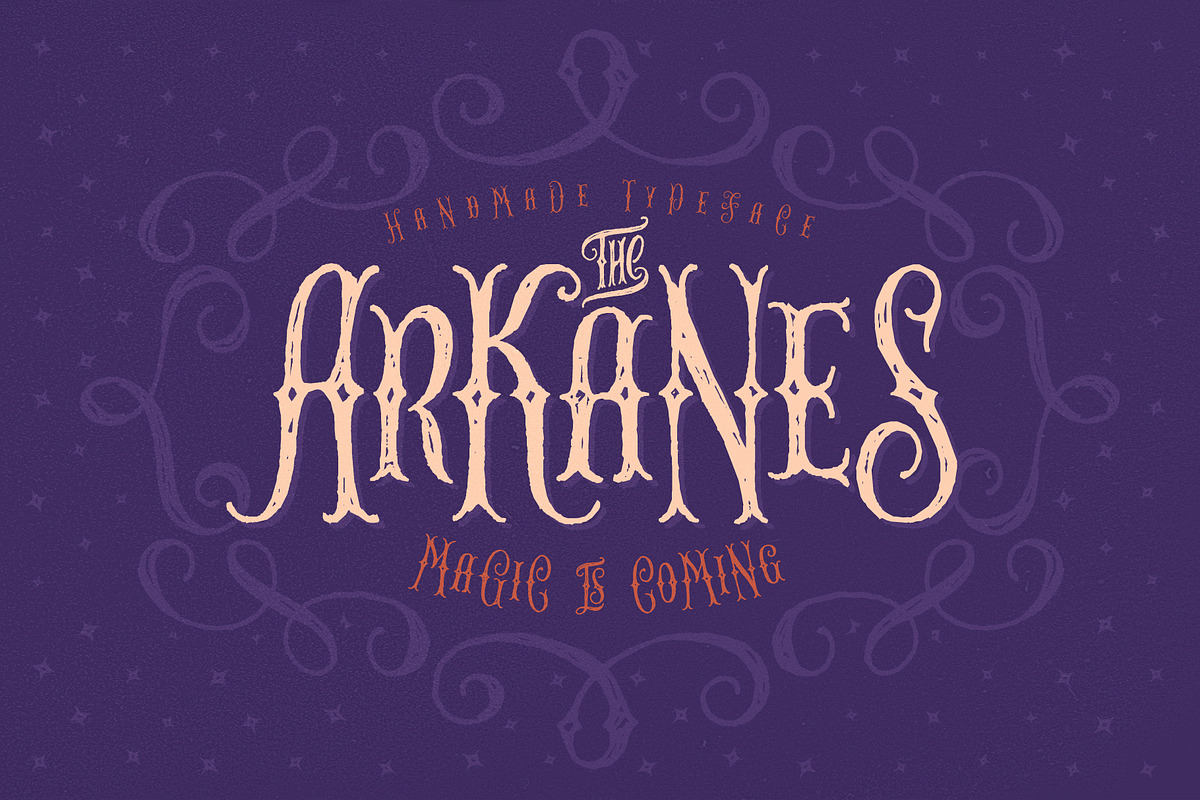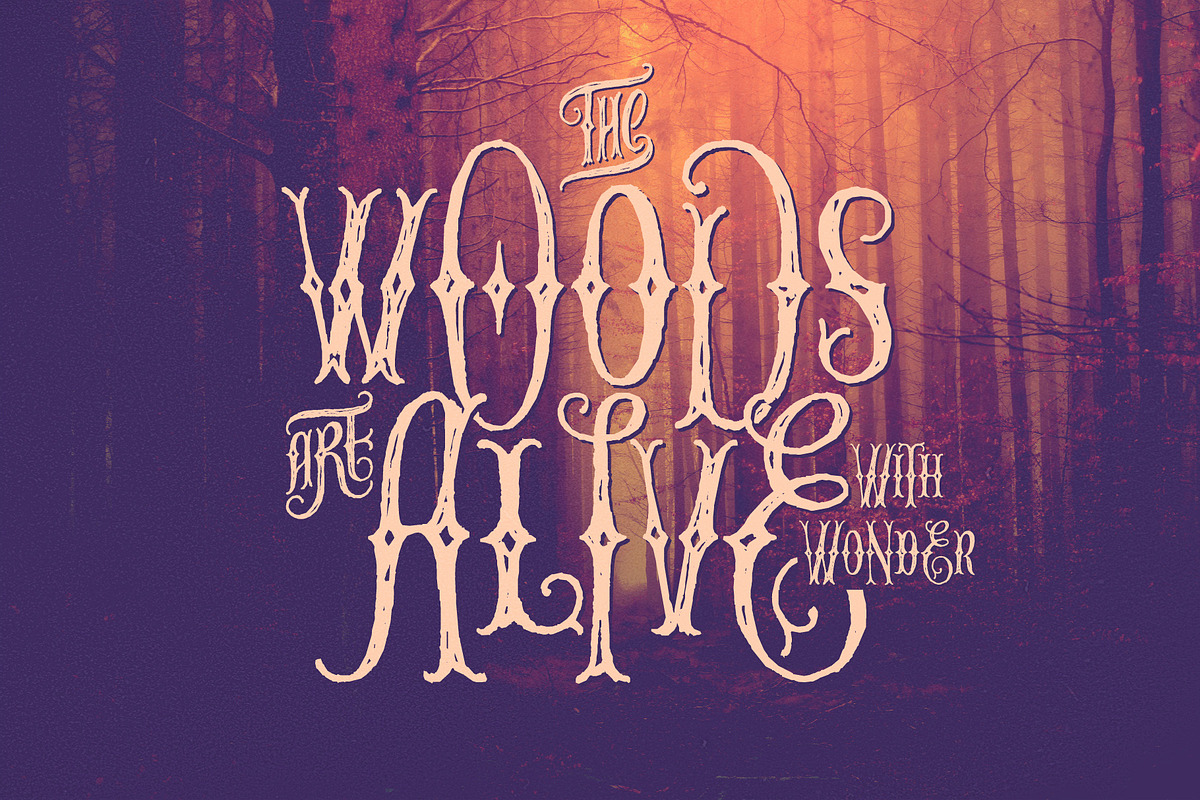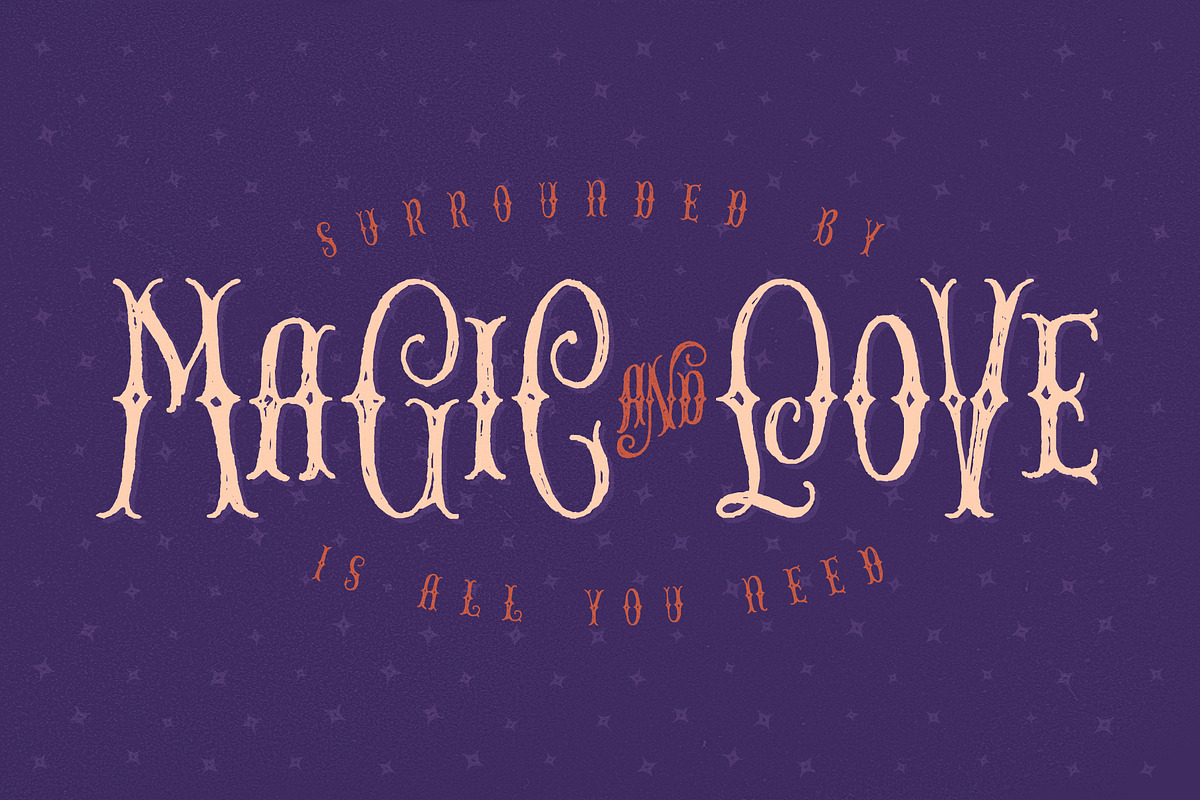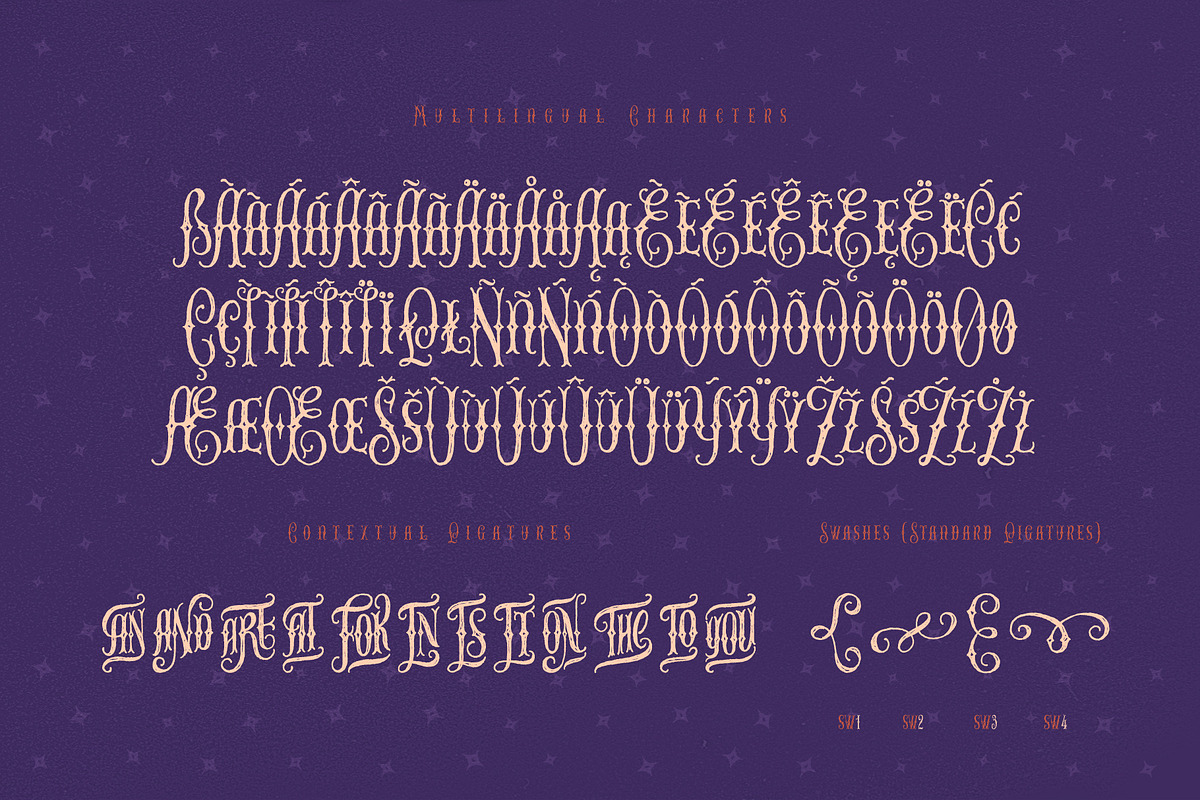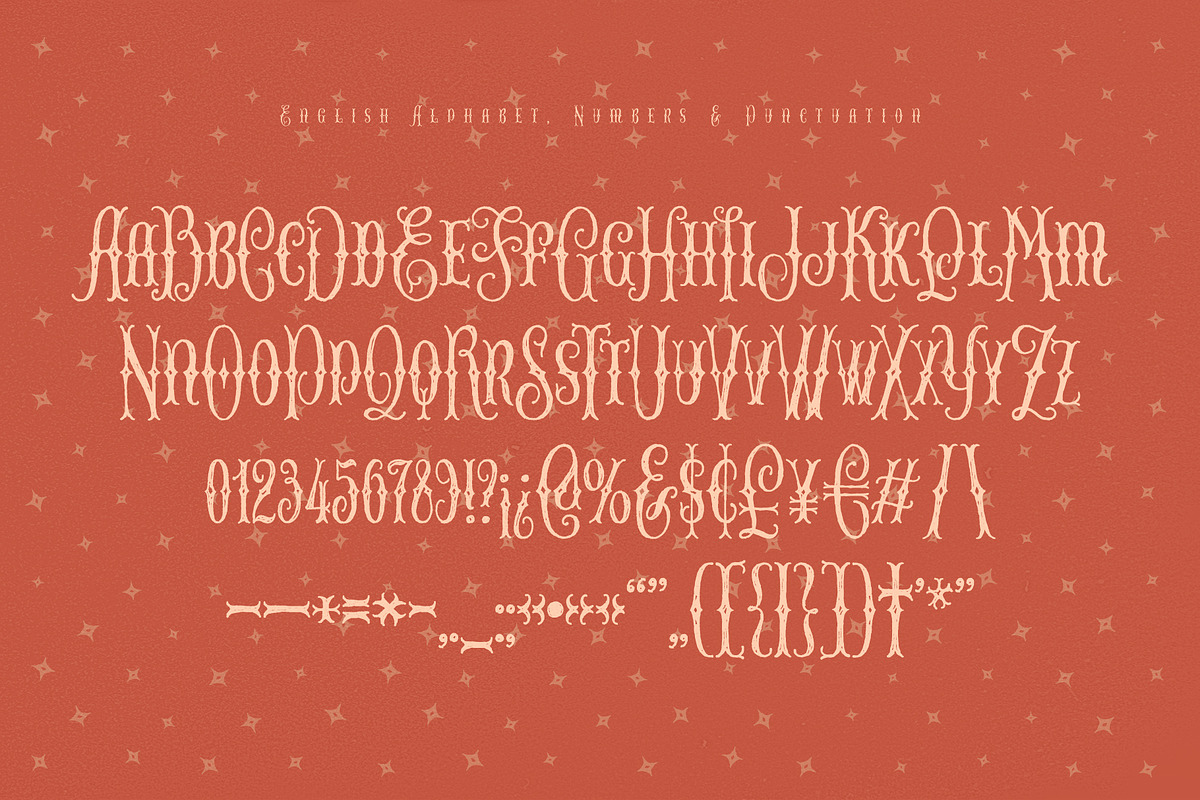
The Arkanes Handmade
Meet The Arkanes Handmade Typeface, featuring magical vibes and hand-lettered shapes. It brings an enchanted mood to your lettering compositions, making it the perfect choice for mystical branding, fairy-tale book covers, and celestial designs.
An OpenType feature will automatically change the case for every next letter. Please make sure that the Contextual Alternates feature is supported and enabled in your software.
Another OpenType feature is Discretionary Ligatures, which gives you access to 12 uniquely composed extra characters. Also, four swash glyphs are available, released via the Standard Ligatures feature — just type 'sw1', 'sw2', 'sw3', or 'sw4', and a curly, ornate symbol will appear.
This font contains 235 glyphs and supports multiple languages — check the screenshot to view the full character set.